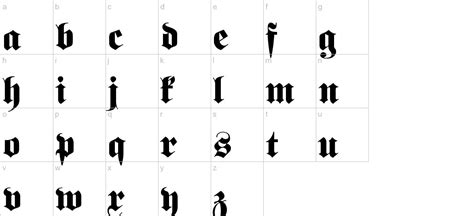
Fette Classic & Fraktur Fonts: A Deep Dive
Hey guys! Ever wondered about those super cool, old-school fonts you see in vintage posters or classic books? We’re talking about Fette Classic and Fraktur fonts. They have a rich history and a unique vibe. Let’s dive deep into the world of these fonts, exploring their origins, characteristics, and how you can use them in your projects. Get ready to geek out about typography! This article is all about helping you understand these fonts better so you can appreciate their beauty and maybe even use them yourself. We’ll cover everything from their historical context to practical tips on using them today. So, grab your coffee, sit back, and let’s get started. Typography is an art, and these fonts are like the masterpieces of the past, still relevant and awesome today. Let’s get started and learn about these great fonts!
Unveiling the Fette Classic Font: A Timeless Beauty
Let’s start with Fette Classic . This font, with its elegant and slightly condensed appearance, is a real head-turner. Often used in display settings, it’s perfect for headlines, titles, and anywhere you need a touch of sophistication. Fette Classic is known for its clean lines and readability, making it a great choice for various design projects. It’s a versatile font that can convey a sense of classic style while still being easy on the eyes. The font’s design is all about balance, with each character carefully crafted to create a harmonious look. It’s like the perfect suit for your text – always stylish and never out of place. The careful design is truly what makes it look good. So, if you’re looking for a font that adds a touch of class without being overly complicated, Fette Classic is an excellent pick. The font is a testament to the fact that good design never goes out of style. The timeless appeal of Fette Classic comes from its ability to blend classic elegance with modern readability, making it a favorite among designers and typographers. Many times, you can spot these in a magazine or even old flyers. The beautiful design that the font offers is a unique one that is hard to ignore, this is what makes it so special.
Characteristics of Fette Classic
So, what makes Fette Classic so special? Well, its key characteristics are: its clean, simple strokes that provide a modern look; the slightly condensed design that makes it space-efficient; and its elegance, perfect for headline use. This font is all about clarity and style. It is designed to be easily read from a distance. The Fette Classic font is a work of art that can provide a unique touch to your project. The clean lines give a feeling of freshness, while the condensed nature ensures it doesn’t take up too much space. The font is an example of great design. The font offers a balance between visual appeal and readability. This makes it a go-to choice for a wide range of projects, from elegant invitations to striking posters. The designer of this font surely had a vision in mind. It is a work of art that can offer a unique feeling to any project, adding style while being highly readable. The font’s versatility is one of its greatest strengths. It can be used across various mediums, from print to digital, without losing its impact. So if you are looking for a font that speaks volumes, try the Fette Classic font!
Uses in Modern Design
How do designers use Fette Classic today? Fette Classic is used in logos and branding, headlines, and print materials. You’ll find it in high-end magazines, fashion websites, and even some corporate communications. Its timeless look makes it suitable for brands that want to convey a sense of sophistication and tradition. Fette Classic is often used when creating a visual identity that wants to give off a sophisticated look, or for the creation of headlines and titles in a design project. When used, the design looks elegant and classic. So if you want to add a classic touch to your projects, then the Fette Classic font is a great option. Remember, it’s all about how you use it. So go ahead, experiment, and see how Fette Classic can transform your designs. The font is often used to grab the reader’s attention.
Exploring the Fraktur Font: A Gothic Legacy
Now, let’s talk about Fraktur fonts, also known as Gothic or Blackletter . These fonts have a completely different vibe! Fraktur fonts are characterized by their ornate, angular, and sometimes complex letterforms. They give off a distinctly historical and traditional feel. Fraktur is a real statement font! This type of font is known for its intricate designs and dark appearance. Fraktur has a cool historical significance. It used to be all the rage in Europe. Imagine seeing it in old books and manuscripts. The history alone makes it super interesting. It’s the go-to font for projects needing a touch of history, such as historical publications, themed designs, and anything that needs to evoke a sense of the past. Fraktur has a unique aesthetic that makes it stand out. It’s the perfect choice for projects that aim to make a strong visual impact. If you want to create something that screams